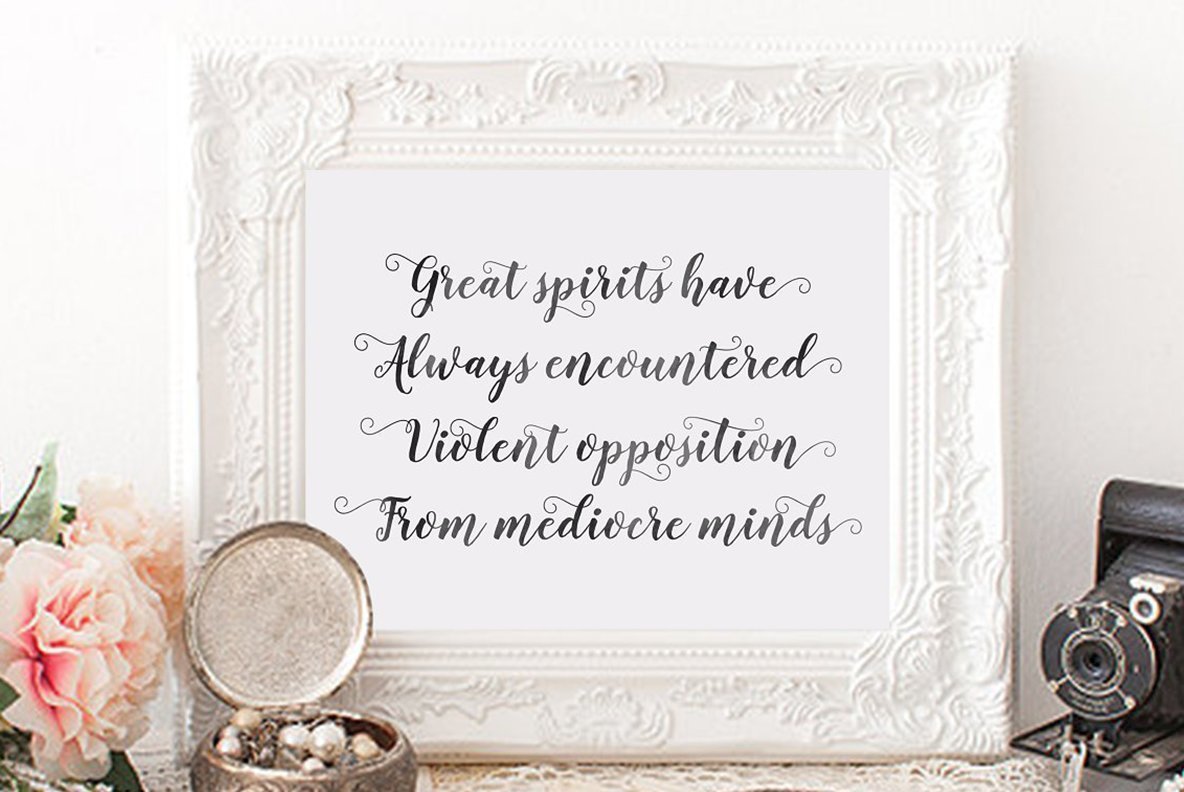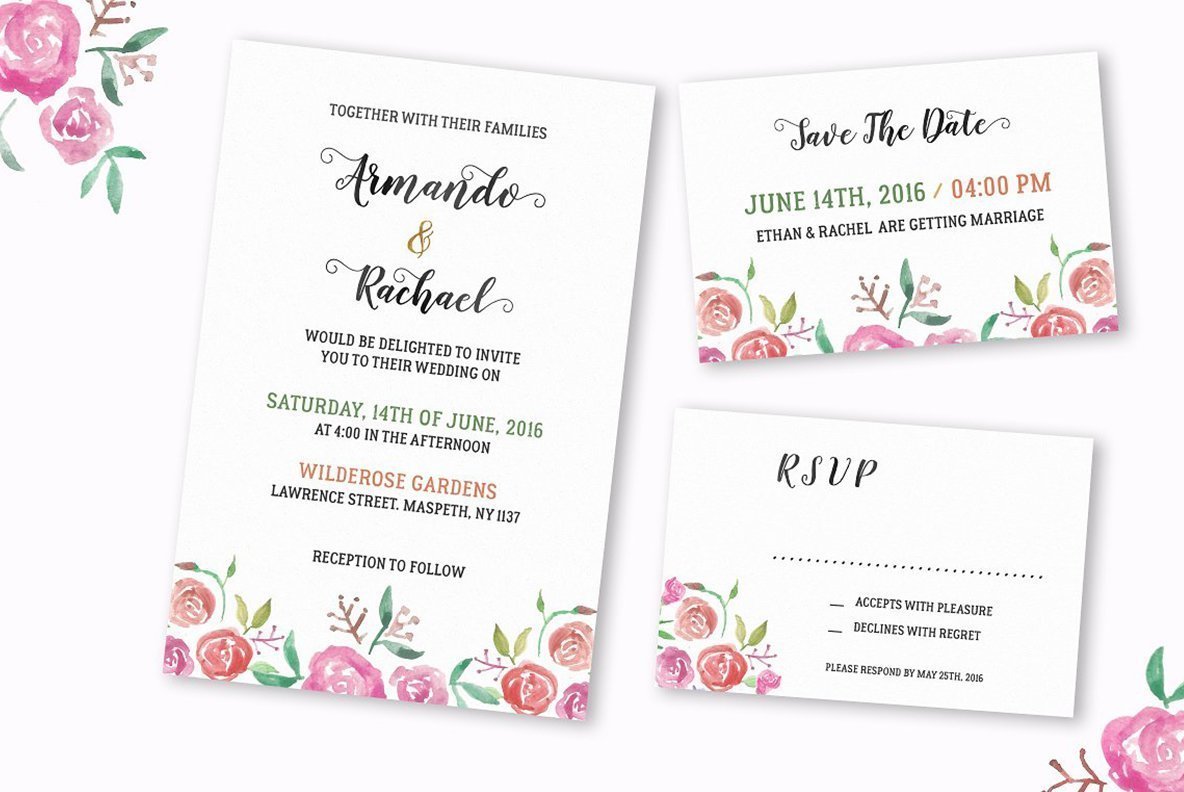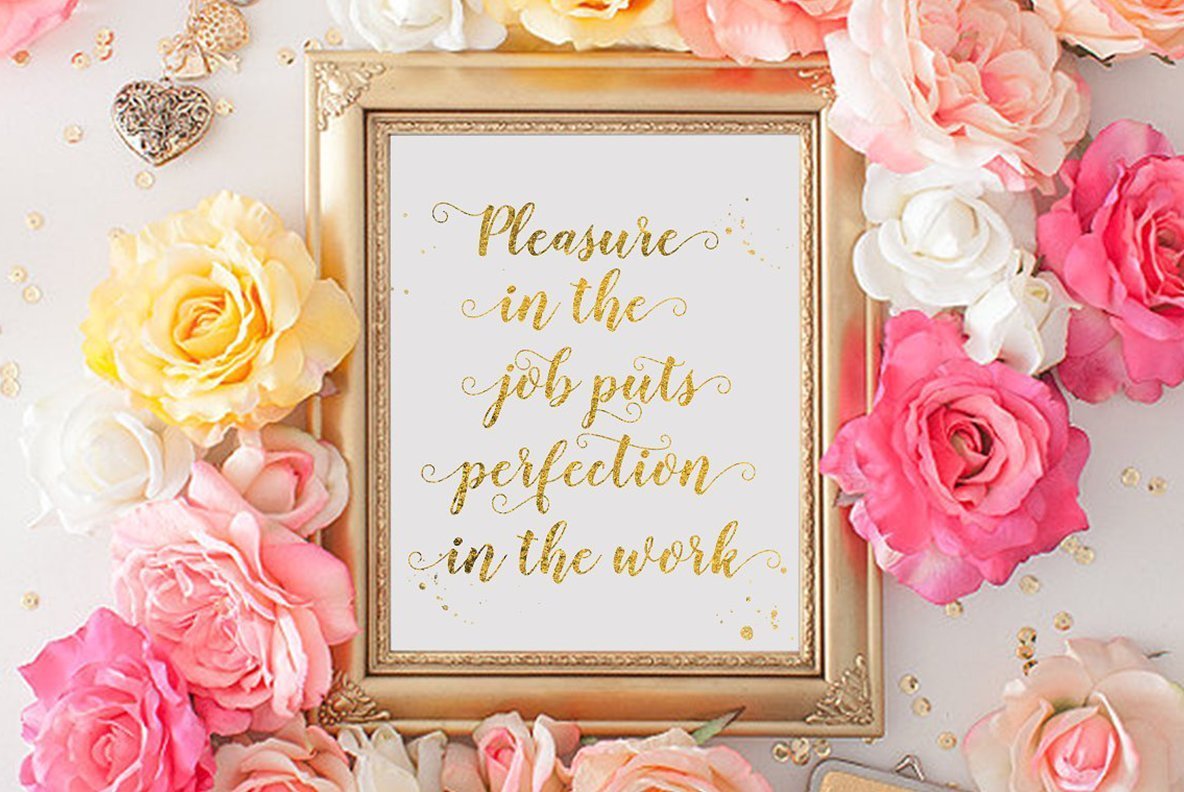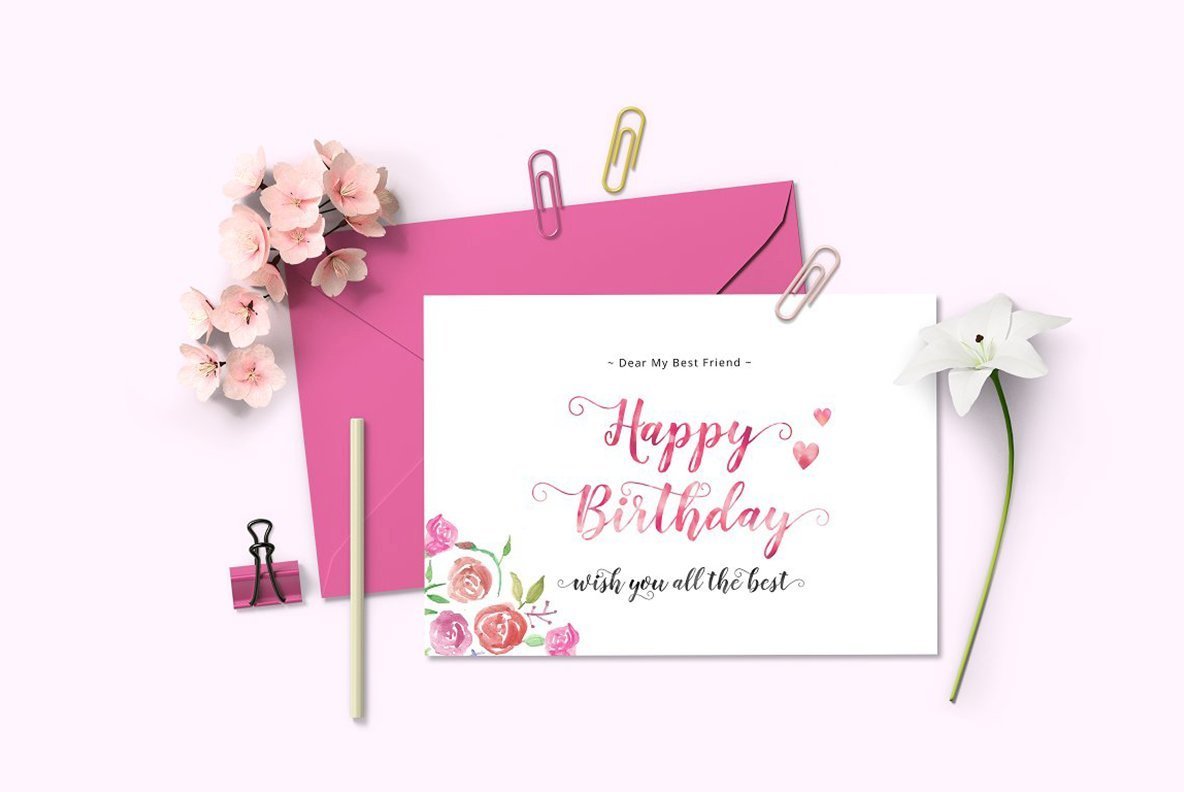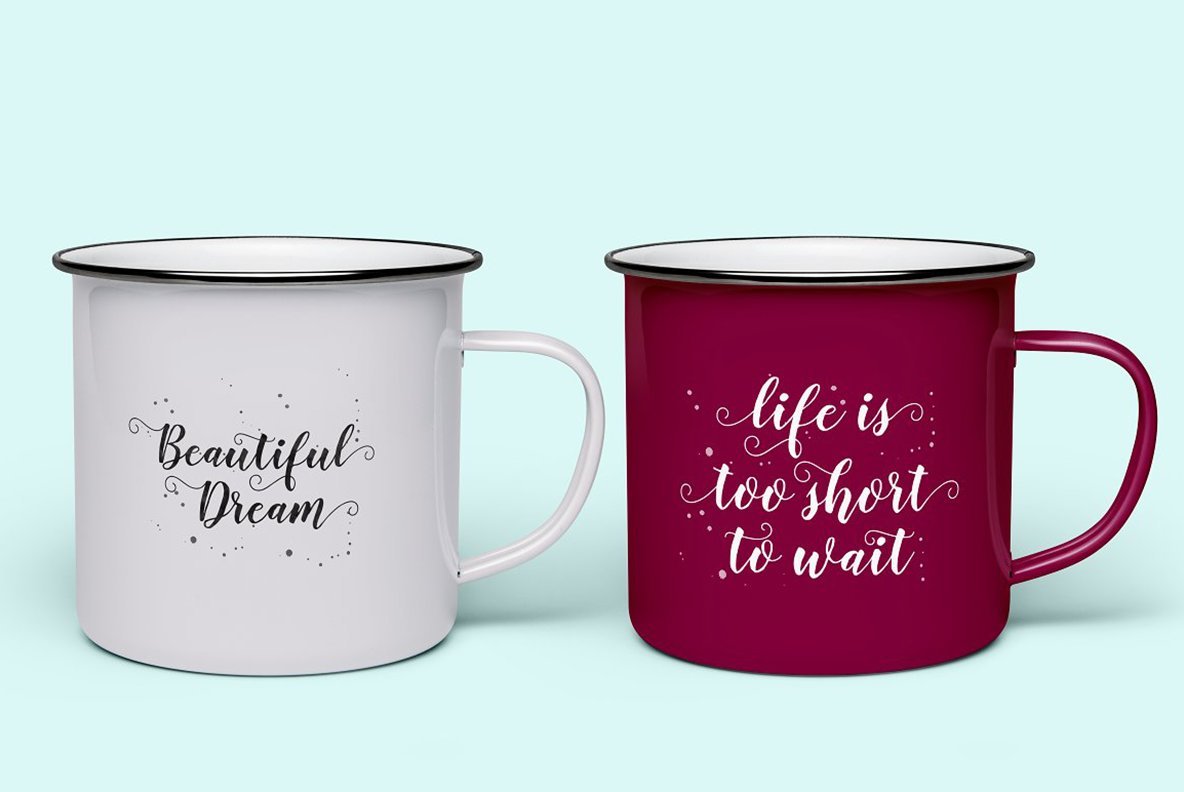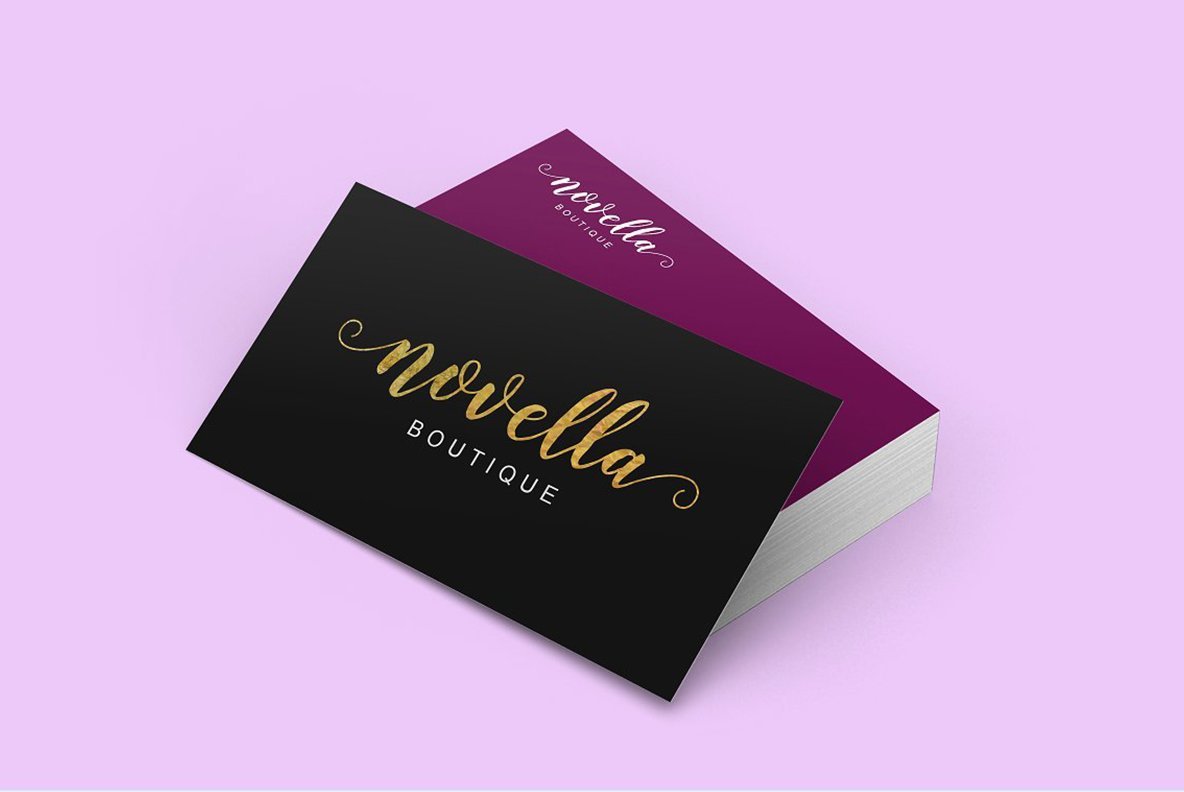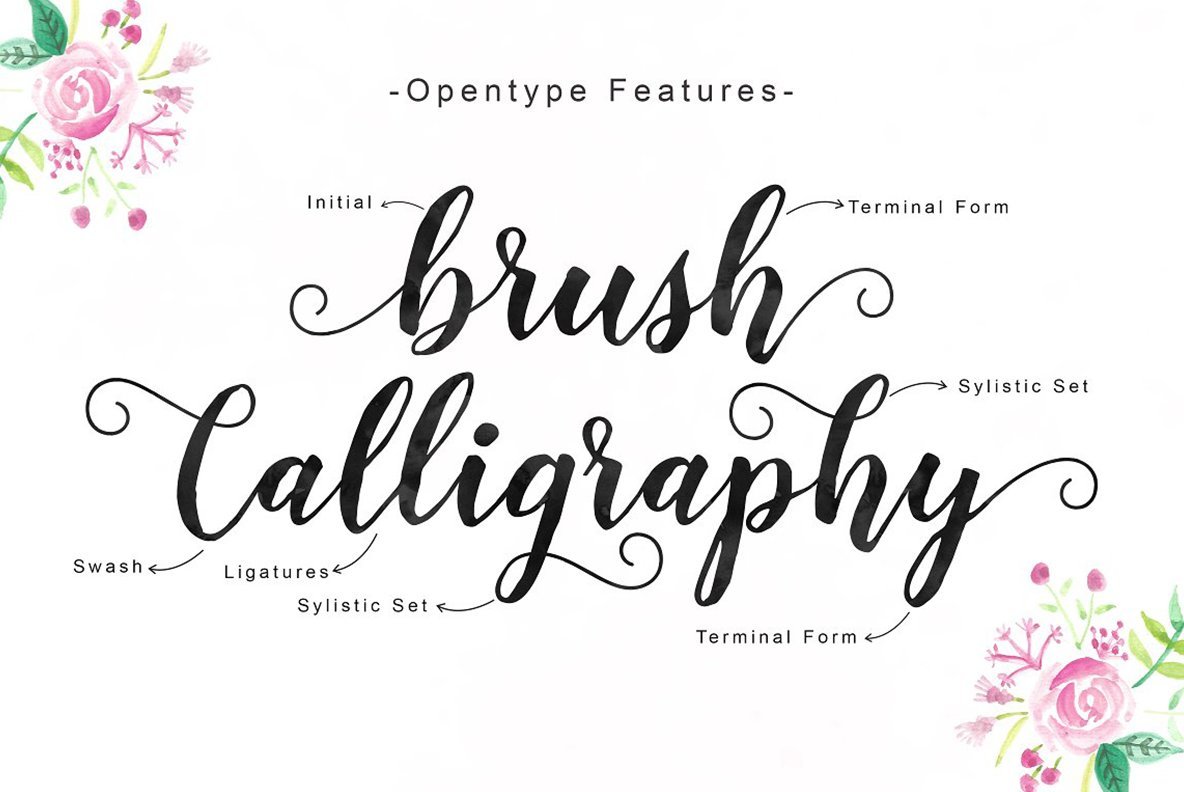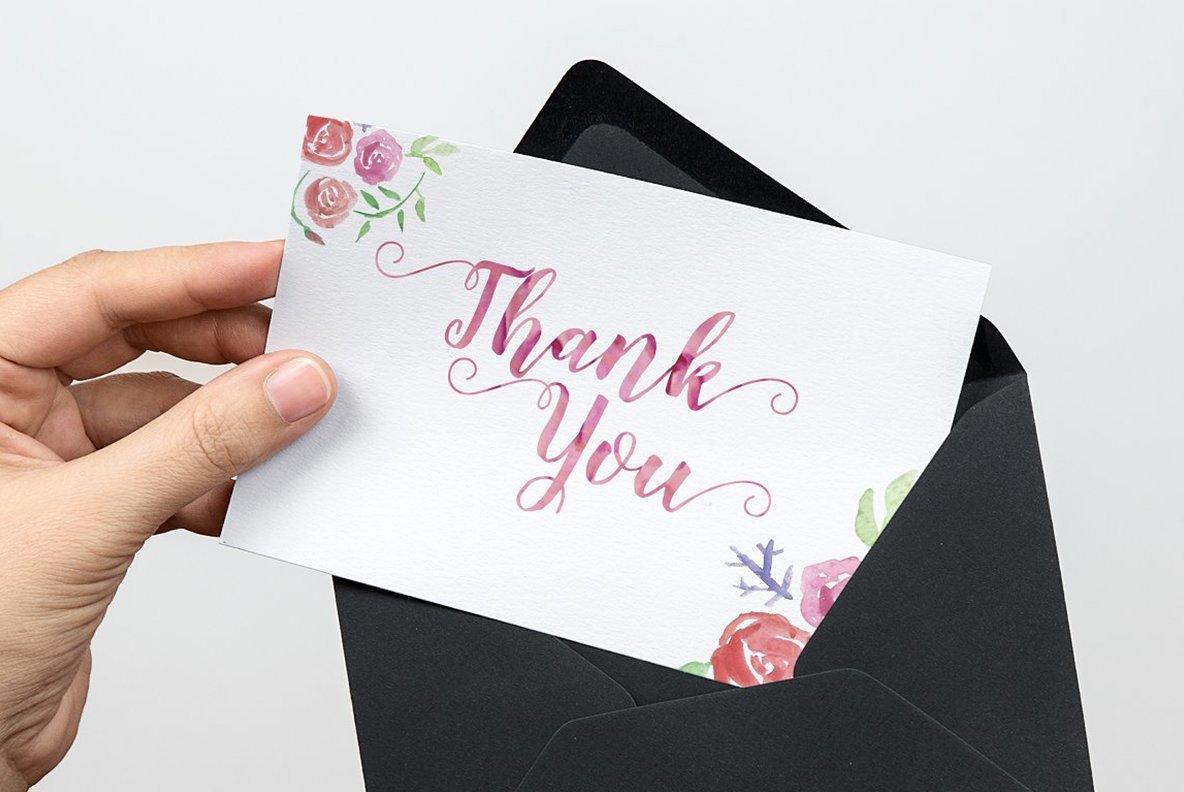
Delighted Font
Delighted
Delighted is a script design published by Unicode Studio.
- Initial Alternates
- Contextual Alternates
- Standard ligatures
- Unique ligatures
- Stylistic Alternates
- Stylistic sets
- Basic Latin A-Z and a-z
- Numbers
- International Symbols Support